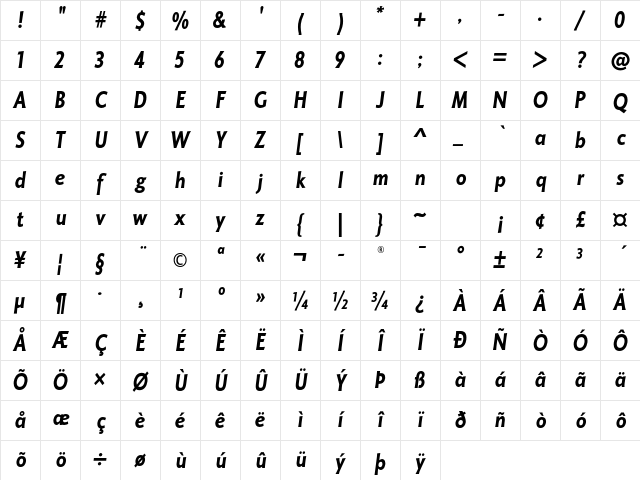
Octone ITC Std Bold Italic
Designer: Eric de Berranger
Complete Octone ITC Std Bold Italic glyph index. Displaying only characters natively supported by Octone ITC Std Bold Italic font.
Design Context for Octone ITC Std
Octone ITC Std is a composed and adaptable typeface that performs quietly and consistently across a wide range of design contexts. The slanted form adds forward momentum and visual energy. Its bold stroke weight gives it real presence on the page.
Pro Tip: Use Octone ITC Std for emphasis, pull quotes, and subheadings where its slanted energy can add rhythm to the layout.